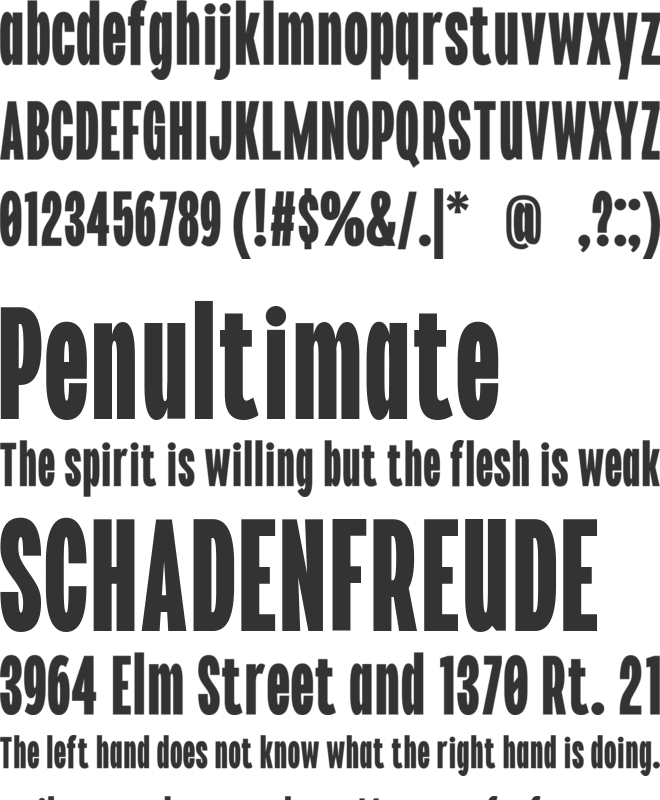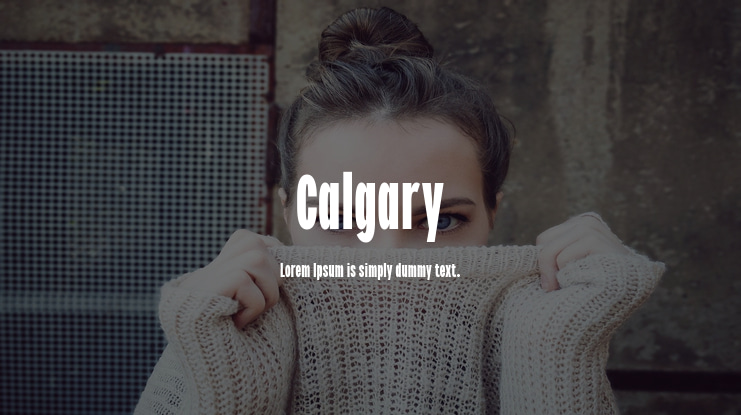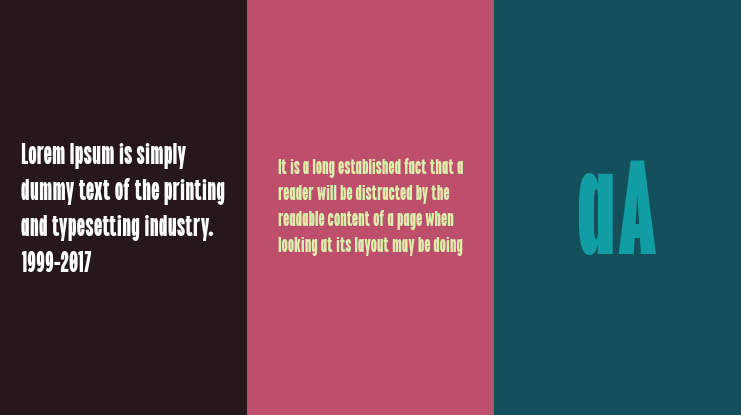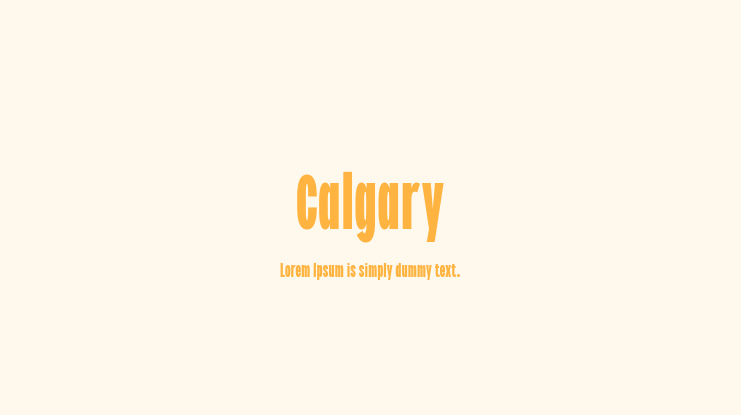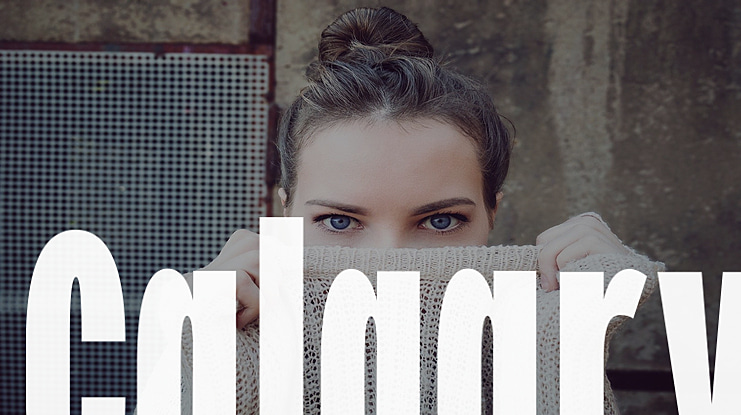
Calgary Font
This font is a condensed geometric sans with a retro style, inspired by various typographic styles. All this makes Calgary a font full of personality, striking and recognizable. Ideal for the construction of logos, eye-catching headlines, movie posters, volumetric posters, etc.